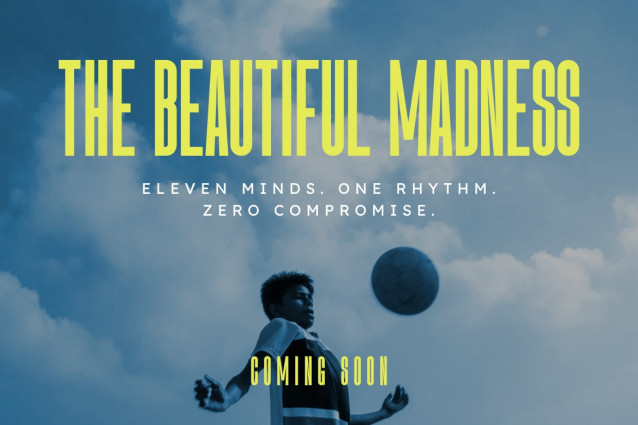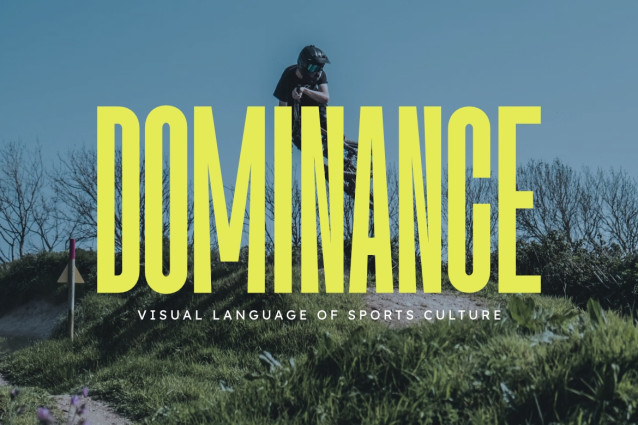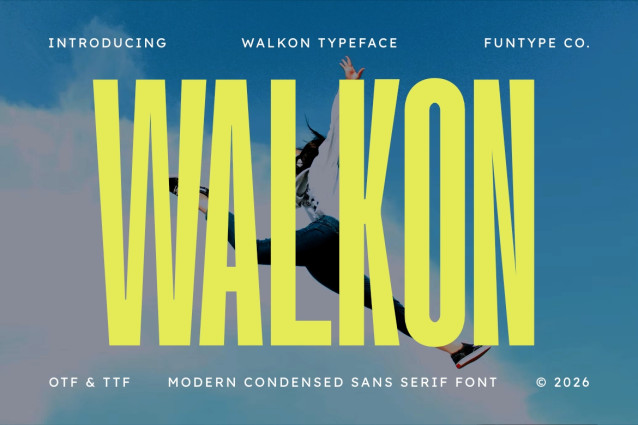
Walkon is a vibrant, high-energy, and modern condensed sans serif font, engineered to bring a youthful dynamic presence, ultra-tall space-saving geometry, and an expressive display aesthetic to contemporary graphic layouts. Featuring an elongated vertical profile, bold neon-style proportions, and subtle angled stroke details, Walkon introduces an energetic outdoor event identity, extreme sports promotion, youth lifestyle editorial layout, and prominent digital media presentation designed to claim absolute visual focus.
This font family is the ultimate choice for creative directors, event organizers, and digital publishers looking to implement a lively typography identity for major text hierarchies.
Whether you are developing bold corporate enterprise logotypes, music festival posters, outdoor adventure campaign headers, cinematic action movie title sequences, energetic beverage packaging, or prominent digital web banners, Walkon stands out with supreme legibility and commanding expressive confidence.